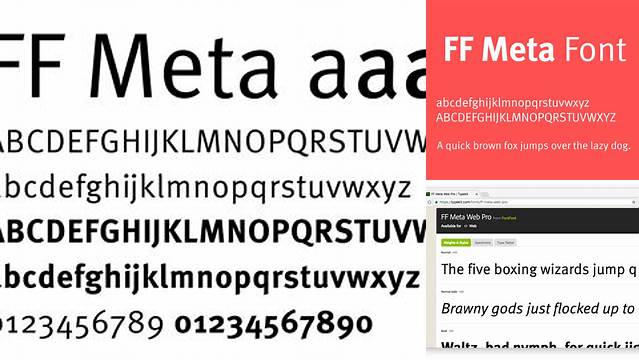
What is FF Meta Web Pro?
First things first, what exactly is FF Meta Web Pro? It's a versatile and modern sans-serif font designed by Erik Spiekermann. It's part of the larger FF Meta family, which is renowned for its clarity, readability, and contemporary feel. This font is widely used in various contexts, from web design to print materials, thanks to its clean lines and excellent legibility. It's a favorite among designers and developers for its ability to convey a sense of professionalism and style. The font family includes multiple weights and styles, offering flexibility for different design needs. Whether you're working on a website, a presentation, or a branding project, FF Meta Web Pro can be a valuable asset. Its adaptability makes it a go-to choice for creating a consistent and visually appealing design across all platforms. Many people love this font. If you're a designer looking for a reliable and elegant typeface, then FF Meta Web Pro is definitely worth considering. It’s known for its unique blend of geometric and humanist characteristics, making it both modern and friendly.
Characteristics of FF Meta Web Pro
The FF Meta Web Pro font has several key characteristics that make it stand out. Here are some of the notable features:
- Readability: Designed for optimal readability, it is suitable for both headings and body text.
- Versatility: It comes in various weights and styles, making it flexible for different design applications.
- Modern Aesthetic: It has a contemporary feel, perfect for modern design projects.
- Professionalism: Its clean and elegant design conveys a sense of professionalism.
- Legibility: The letters are well-defined, making it easy to read on both screens and in print.
These characteristics make FF Meta Web Pro a great choice for any design project. It's a workhorse font that can handle a variety of design tasks, from website headers to printed brochures. Its timeless design ensures that your project will remain stylish for years to come.
Using FF Meta Web Pro in Your Projects
So, you've managed to get the font. What’s next, guys? Let's explore how to use FF Meta Web Pro in your projects. This versatile font is a great choice for various applications, making your designs look professional and stylish. Whether you're working on a website, a presentation, or print material, it offers a wide range of possibilities. You can use this font for headings, body text, and even in your logo. Here's how to make the most of it.
Web Design
In web design, FF Meta Web Pro is a great choice for creating a clean and modern look. Its excellent readability makes it perfect for body text. You can use it for headings, navigation menus, and call-to-action buttons. To ensure optimal readability, choose appropriate font sizes and weights. Use lighter weights for body text and bolder weights for headings. Ensure the font is consistent with your brand's overall style. Consider using CSS to customize the font size, color, and spacing to fit your site's design. Make sure that the font looks good on different devices and screen sizes. By integrating FF Meta Web Pro into your website's design, you can make it more engaging and visually appealing.
Graphic Design and Print Materials
FF Meta Web Pro is a fantastic choice for graphic design projects. It’s versatile enough to use in various print materials like brochures, posters, and business cards. It is essential to experiment with different weights and styles to find the perfect look for your design. For headings, bold weights will make them pop, while lighter weights are perfect for the body text. To create visually stunning print materials, carefully consider the layout. Always ensure that the font is readable, even in smaller sizes. Remember to use a high-resolution version of the font to maintain quality. This attention to detail will help to make your designs more impactful and professional.